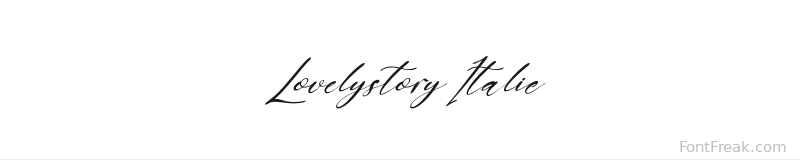
Lovelystory Italic
Lovelystory Italic by Kong Font is a beautifully crafted script typeface that embodies elegance and charm. This font features a flowing, handwritten style characterized by its delicate strokes and graceful curves. The contrast between thick and thin lines adds a dynamic quality, while the slightly slanted posture enhances its inviting and romantic aura. Lovelystory Italic is perfect for projects that require a touch of sophistication.
The decorative elements in Lovelystory Italic, such as its ornate ligatures and flourishes, make it a standout choice for various design applications. Best suited for wedding invitations, it beautifully conveys heartfelt sentiments. Additionally, it works wonderfully for branding elements like logos and packaging, where an emotional connection is vital. Restaurant menus can also benefit from its stylish flair, making dishes appear more enticing. Furthermore, this font is ideal for greeting cards and social media graphics, where a personal touch is desired.
The target audience for Lovelystory Italic includes graphic designers, small business owners, and content creators looking to elevate their visual communication. This font appeals to those who want to evoke feelings of warmth and romance in their work.
What sets Lovelystory Italic apart is its unique ability to blend elegance with approachability. Its free availability as a freeware font allows designers of all levels to incorporate this stunning typeface into their projects without financial constraints. Whether you are crafting a heartfelt invitation or designing a captivating logo, the Lovelystory Italic font free download offers a perfect solution that enhances your creative expressions. This font is not just a typeface; it’s a storytelling tool that resonates with emotions and aesthetics alike.